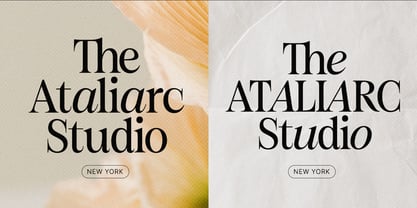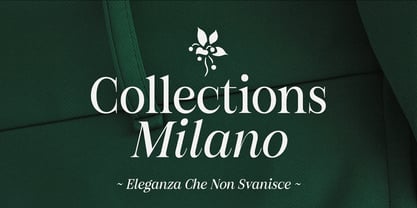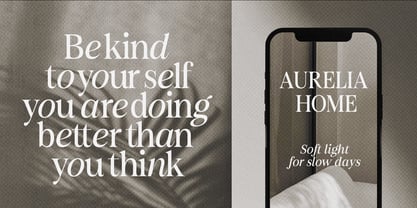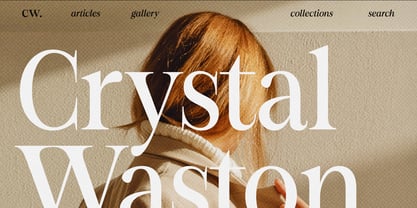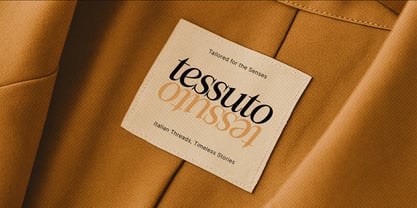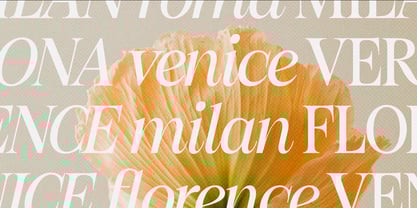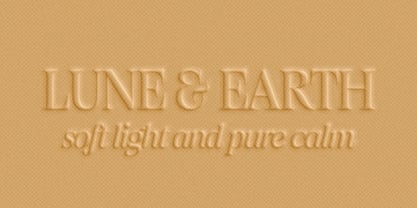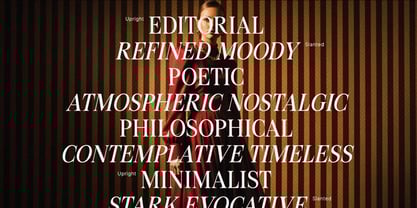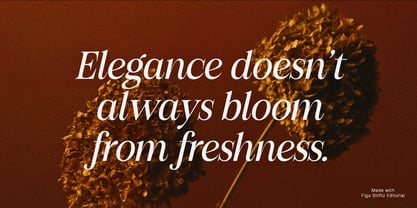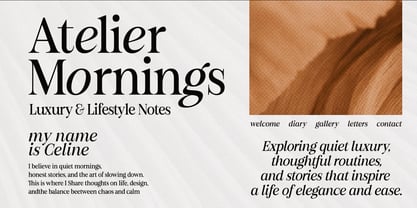
Figo Shiftz Editorial Serif
by Propertype
The Figo Shiftz Editorial Serif Font Family was designed by Nadia Auliana and published by Propertype. Figo Shiftz Editorial Serif contains 2 styles and family package options. More about this family
Figo Shiftz Editorial is a modern serif typeface designed to evoke elegance and timeless sophistication. Crafted by Propertype Foundry, it blends classic typographic traditions with contemporary refinement, making it ideal for editorial design, branding, and high-end publishing. Key Features: • Elegant Serif Structure: Delicate yet confident strokes with refined contrast. • Classic Italics: Graceful italic forms that add a touch of tradition and fluidity. • Timeless Appeal: Suitable for both modern and vintage-inspired layouts. • Editorial Focus: Perfect for magazines, books, and visual storytelling. Whether you're designing a luxury fashion spread or a minimalist literary journal, Figo Shiftz Editorial offers a voice that’s both poised and expressive.
Designers: Nadia Auliana
Foundry: Propertype